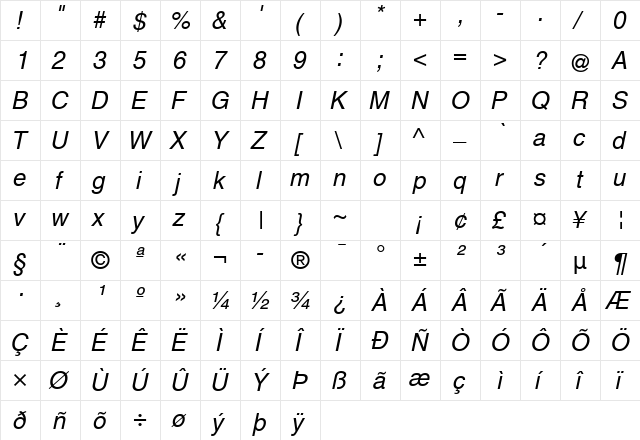
Helvetica World Italic
| Foundry | Linotype GmbH |
| Designer | Linotype Design Studio |
Design Context for Helvetica World Typeface
Helvetica World offers clean, dependable letterforms without strong stylistic allegiance, making it a practical choice for designers who need flexibility. The slanted form adds forward momentum and visual energy.
Pro Tip: Try Helvetica World for annotation and caption copy alongside an upright companion — the contrast in angle creates a dynamic but ordered typographic system.